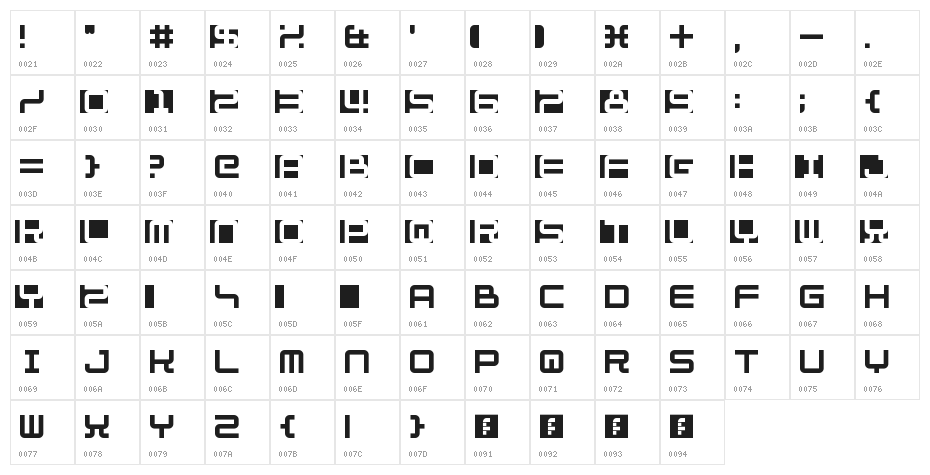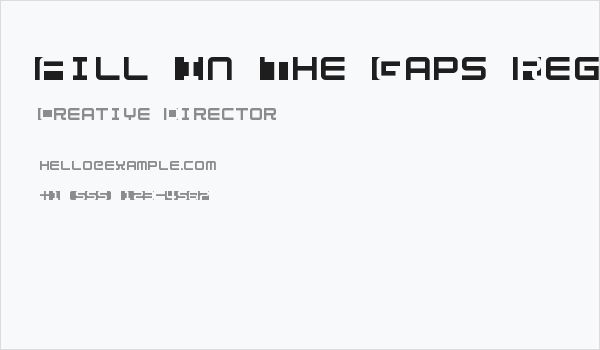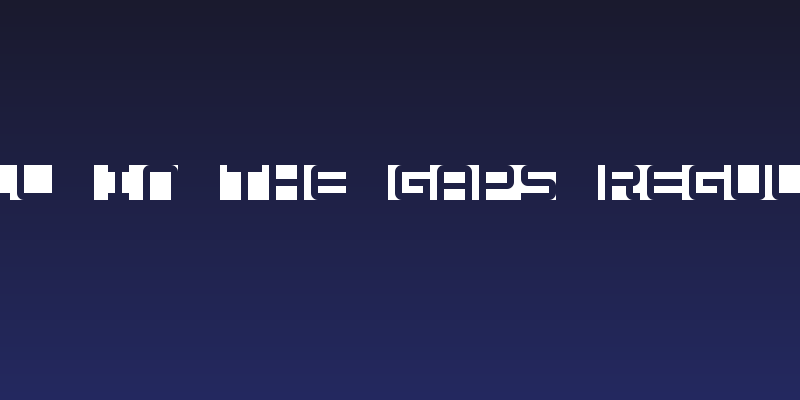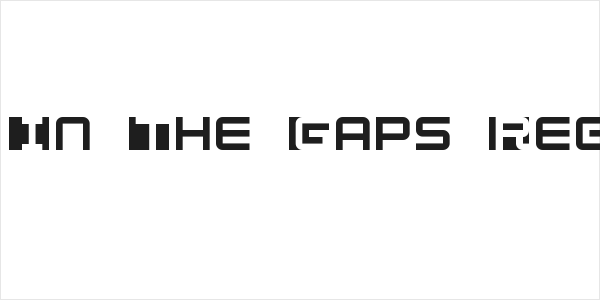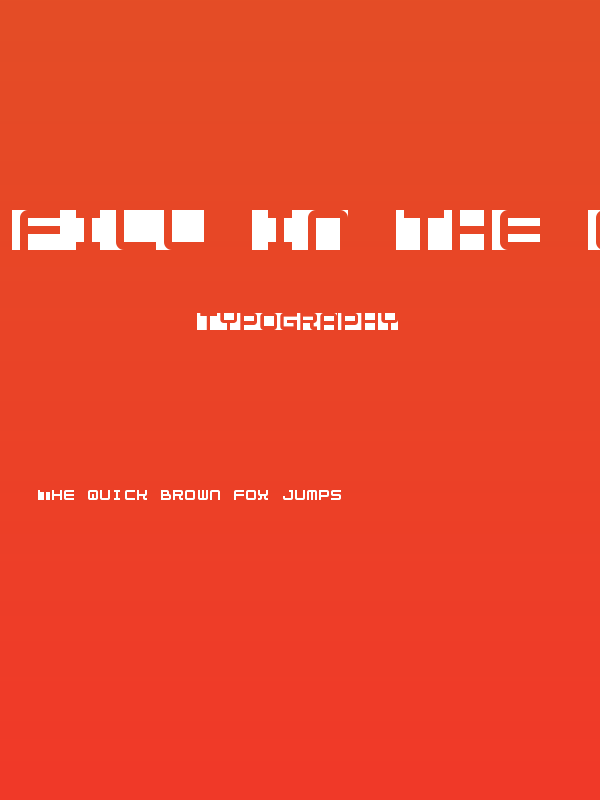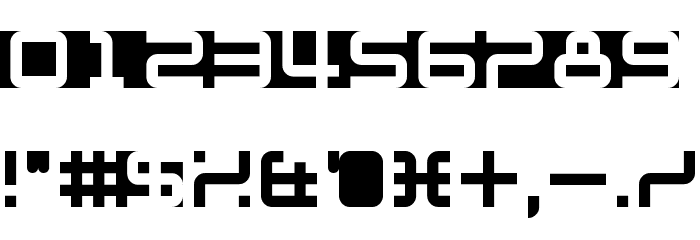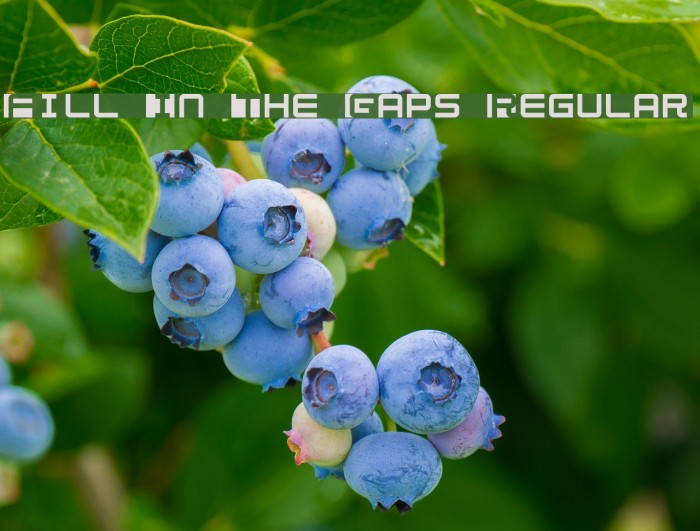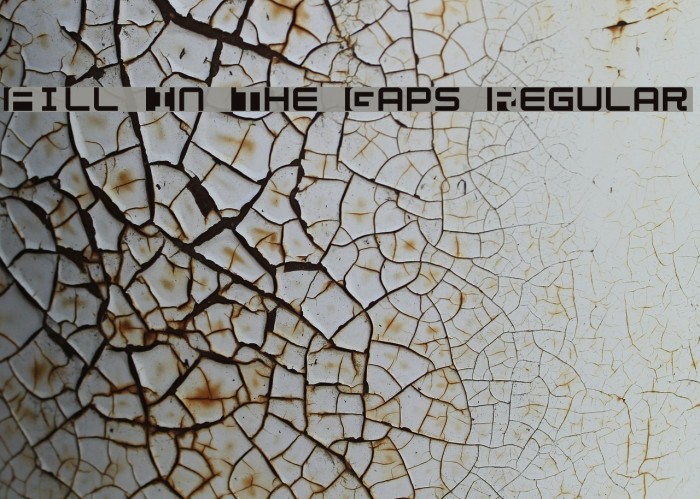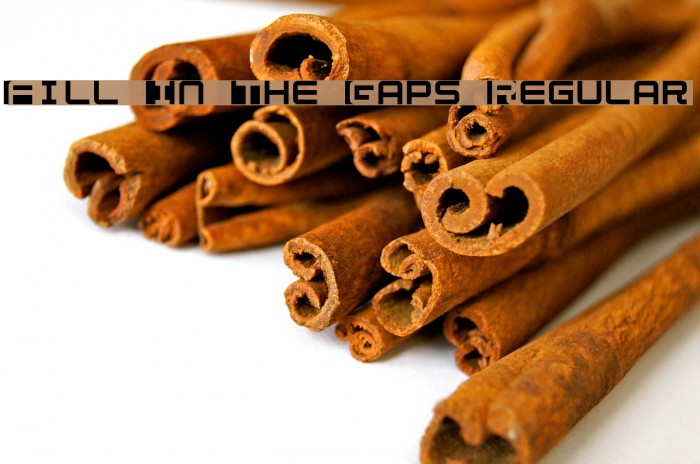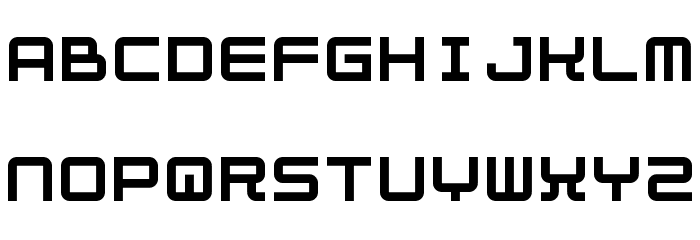
Fill In The Gaps Regular Font
Fill In The Gaps Regular Description
This font features a bold, geometric design with a futuristic and industrial feel. The characters are constructed with a mix of solid and negative spaces, creating a unique visual effect that resembles a stencil or cut-out style. The uppercase letters are particularly striking, with strong vertical and horizontal lines that give them a robust appearance. The lowercase letters maintain the same geometric style, ensuring consistency across the typeface. The numerals and special characters follow the same design principles, making this font suitable for creative and modern projects. Its distinctive style makes it stand out, ideal for attention-grabbing headlines or branding materials.
| Proposed Projects | Ideal for futuristic branding, sci-fi posters, video game titles, and modern advertising. |